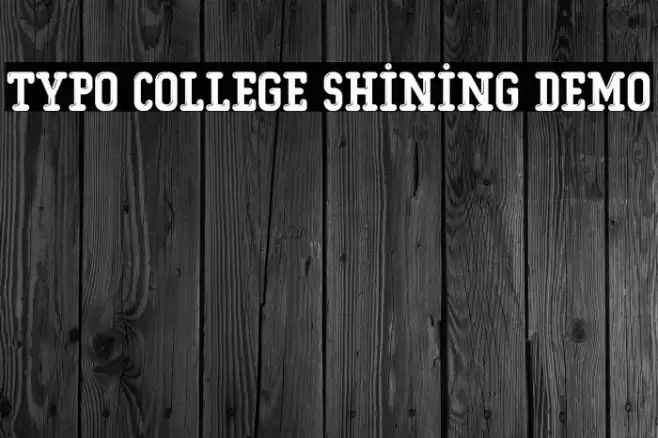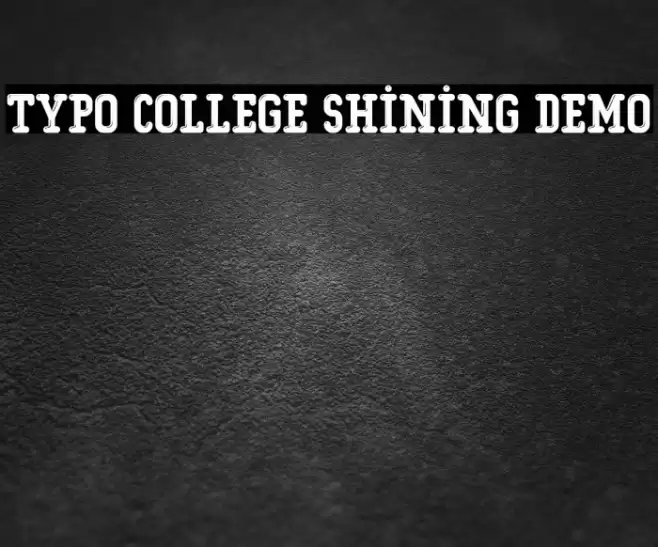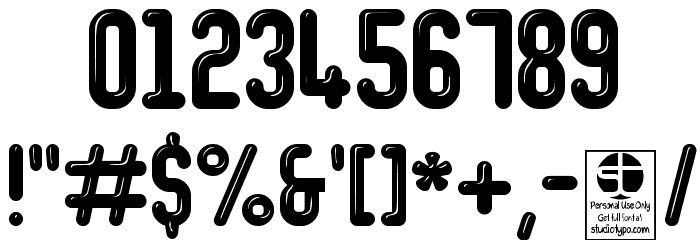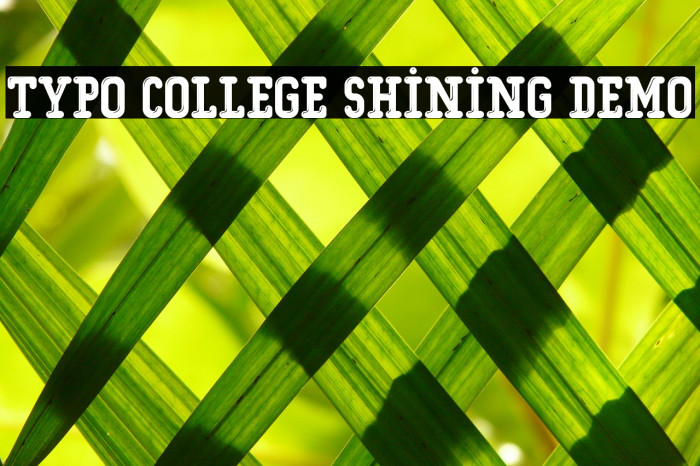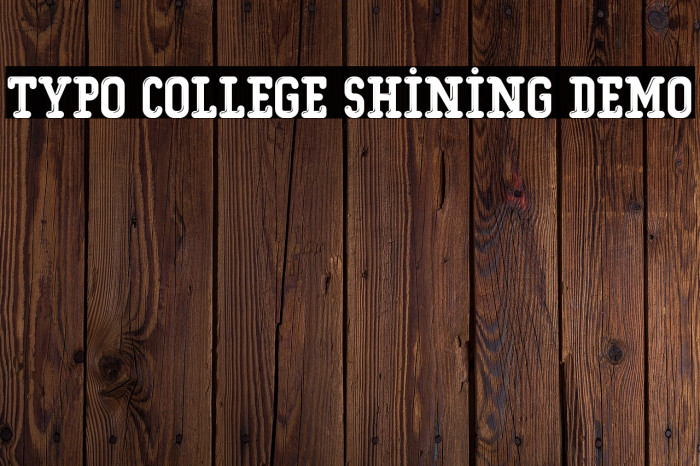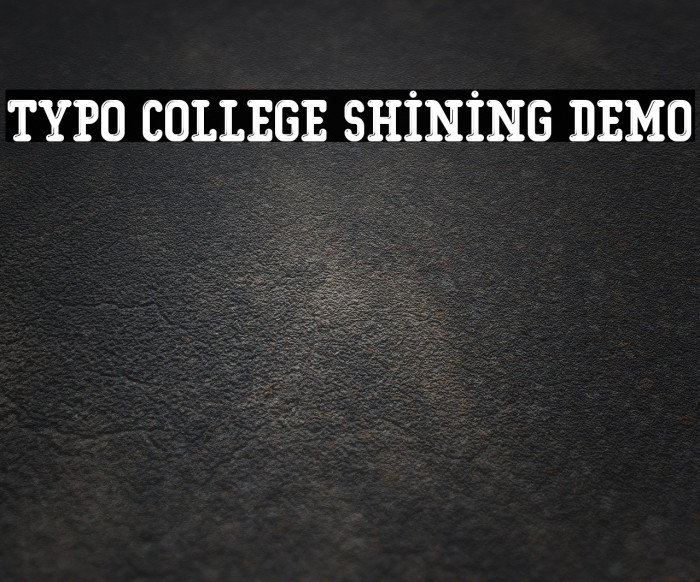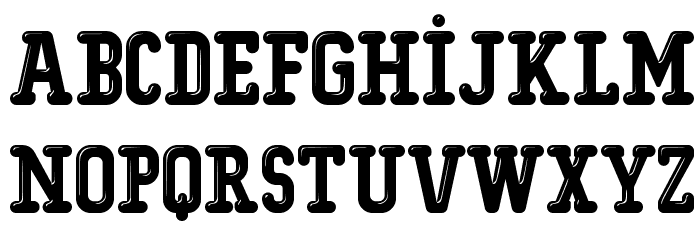
Typo College Shining Demo Font
Typo College Shining Demo Description
This font features a bold and robust design with a distinctly collegiate feel. The characters are uppercase with a strong, blocky appearance, reminiscent of traditional varsity lettering. The strokes are thick and consistent, providing a sense of strength and stability. The font includes a full set of uppercase letters, numbers, and a variety of punctuation marks and special characters. The serifs are pronounced, adding to the classic and authoritative look. This font is ideal for projects that require a bold statement or a vintage collegiate aesthetic.
A bold, collegiate-style font with strong, blocky characters and pronounced serifs from Old fashioned fonts.
- Proposed Projects: Ideal for sports team branding, university merchandise, event posters, and retro-themed designs.
- Overall Style: Vintage